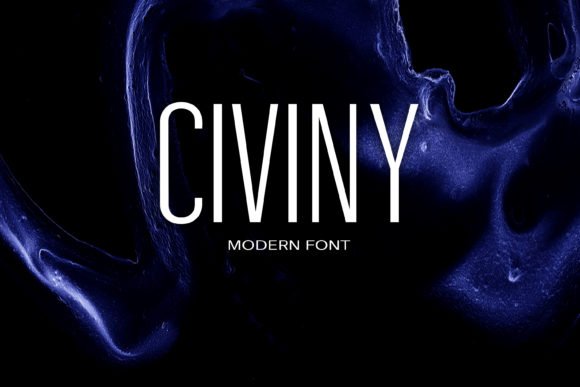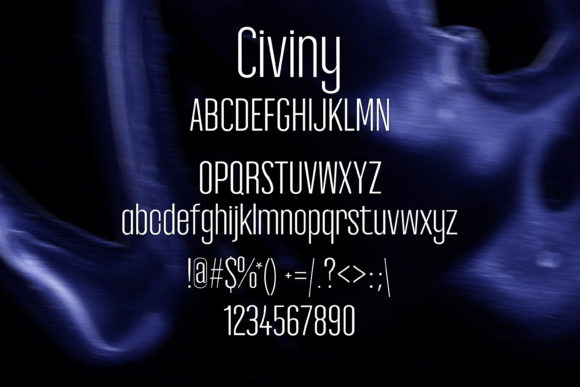
The Perfect Blend of Tradition and Modernity: Civiny Font
You know that moment when you stumble upon a font that sparks an idea, and suddenly your entire design project comes to life? That’s exactly what happened when I discovered Civiny Font – a stunning sans serif font that effortlessly blends traditional sign painting with a modern twist.
Civiny Font is a clean and minimal design that’s perfect for modern designs, from logos and branding to digital interfaces and print materials. Its versatility makes it an invaluable asset for designers, allowing them to create visually striking and cohesive designs that communicate their message effectively.
Whether you’re a seasoned designer or just starting out, Civiny Font is a valuable addition to your toolkit. Its unique blend of classic and contemporary elements makes it an ideal choice for designers who want to create timeless and modern designs that stand out from the crowd.
- Unique Characteristics: Civiny Font features a clean and modern design, with a focus on legibility and readability, making it suitable for a wide range of applications, from body text to headlines.
Civiny Font Review
Overall, I think Civiny is a solid addition to any designer’s toolkit. ✨ Here are some things that work well:
- Legibility: Civiny is incredibly easy to read, even at small font sizes. Its clean lines and minimal ornamentation make it perfect for body text.
- Versatility: Civiny comes in a range of weights, from light to bold, making it suitable for everything from headlines to footnotes.
- Modern feel: Civiny has a distinctly modern aesthetic that’s perfect for contemporary design projects.
- Customizability: While Civiny has a range of weights, it’s not particularly customizable. If you’re looking for a font with a lot of unique flair, you might find Civiny a bit too straightforward.
- Special characters: Civiny’s special characters (e.g. accented letters, symbols) are a bit lacking, which can be a problem for projects that require a lot of internationalization.
- Distress: While Civiny looks great in its standard form, it’s not particularly well-suited to distressed or rough textures, which can be a limitation for designers who like to experiment with different looks.
Overall, I think Civiny is a great choice for designers who want a clean, modern font that’s easy to read and versatile. While it may not be perfect, it’s a solid addition to any designer’s toolkit.
Civiny Font is ideal for:
- Creating modern and minimalist designs.
- Adding a touch of sophistication to business presentations.
- Designing elegant typography and graphics.
Alternatives to Civiny Font
Lato is a modern sans-serif font designed by Łukasz Dziedzic. It’s a versatile font suitable for both body text and headings. Lato is often used in digital products, magazines, and branding materials. It’s a great alternative to Civiny Font for designers who want a clean and legible font with a touch of sophistication.
Lato Font is similar to Civiny Font in its modern and clean design, but it has a more geometric feel. Lato is also more versatile and can be used in a wider range of contexts.
Montserrat is a sans-serif font designed by Julieta Ulanovsky. It’s a bold and modern font inspired by the urban landscape of Montserrat, Argentina. Montserrat is often used in digital products, branding materials, and editorial design. It’s a great alternative to Civiny Font for designers who want a strong and modern font with a touch of grit.
Montserrat Font is similar to Civiny Font in its modern design, but it has a more dramatic and bold feel. Montserrat is also more suitable for titles and headings due to its strong and eye-catching design.